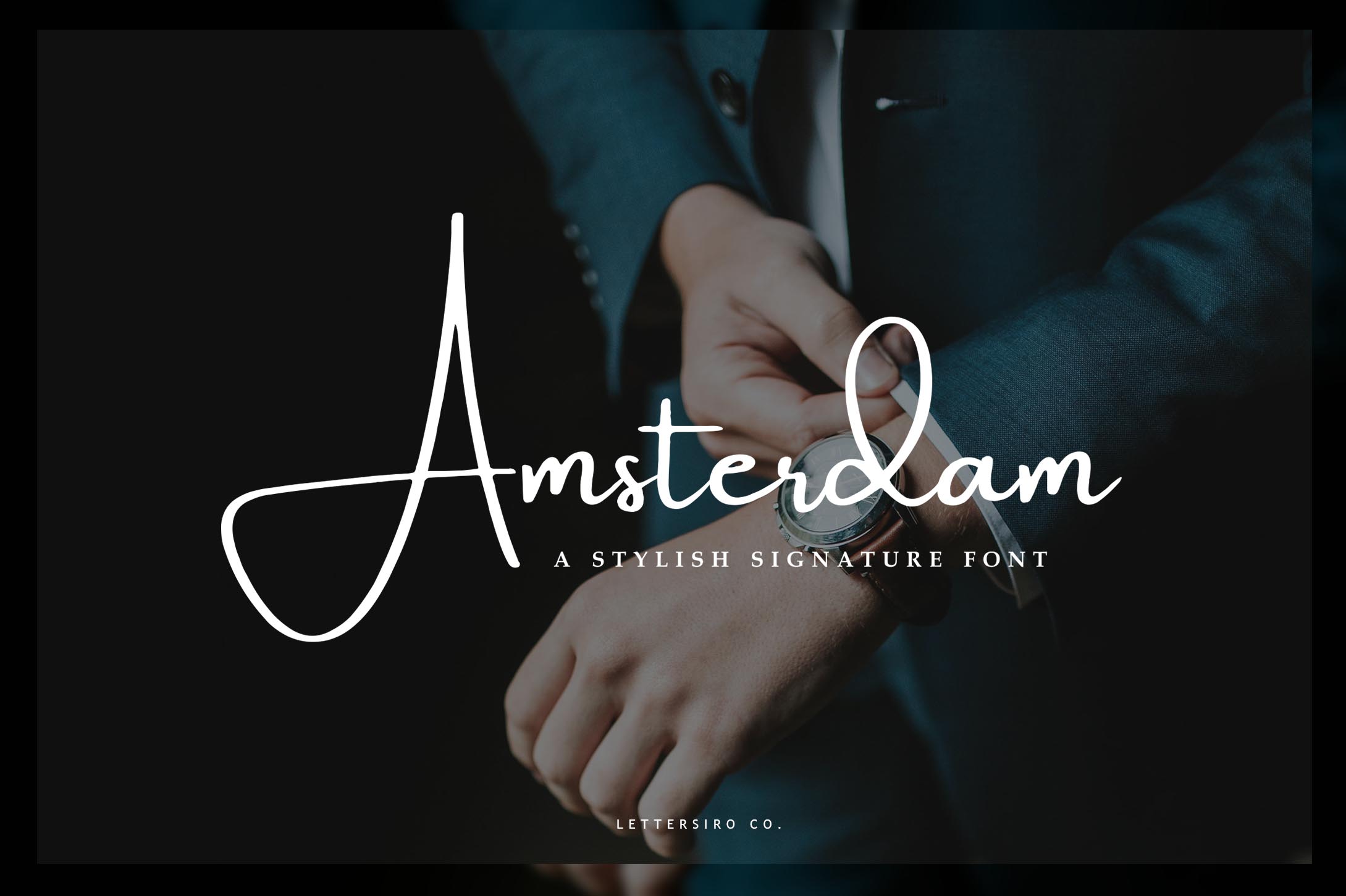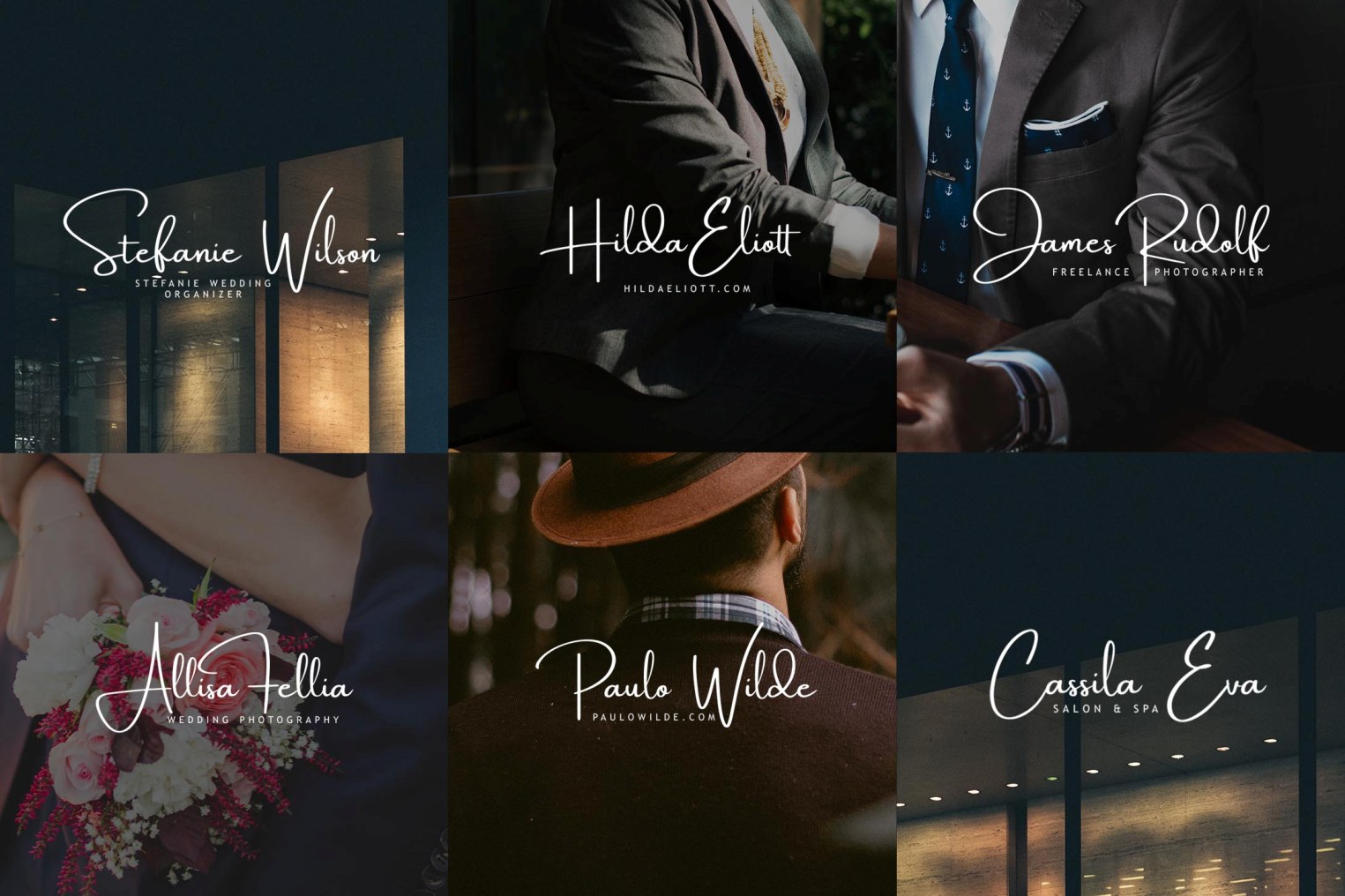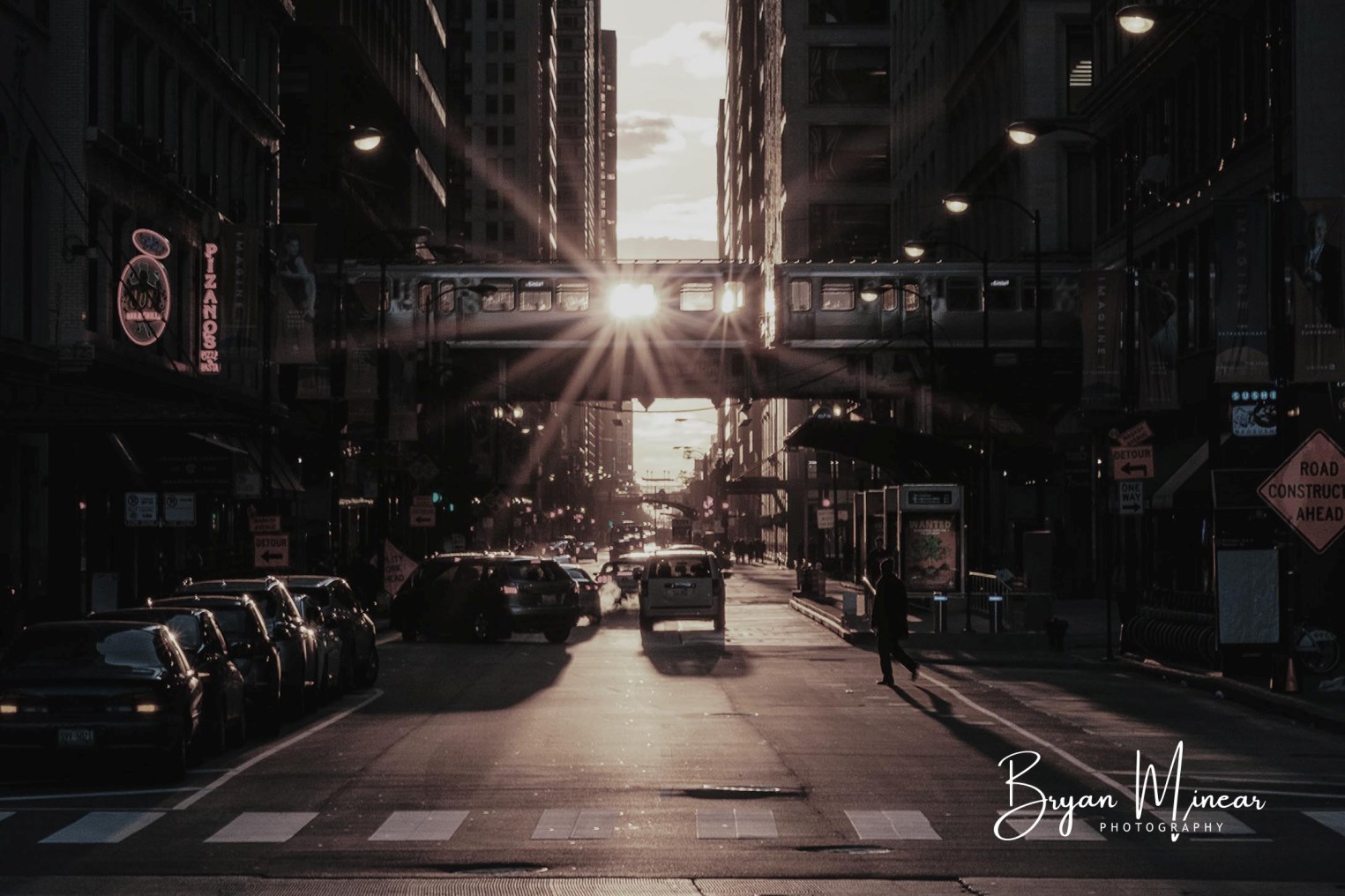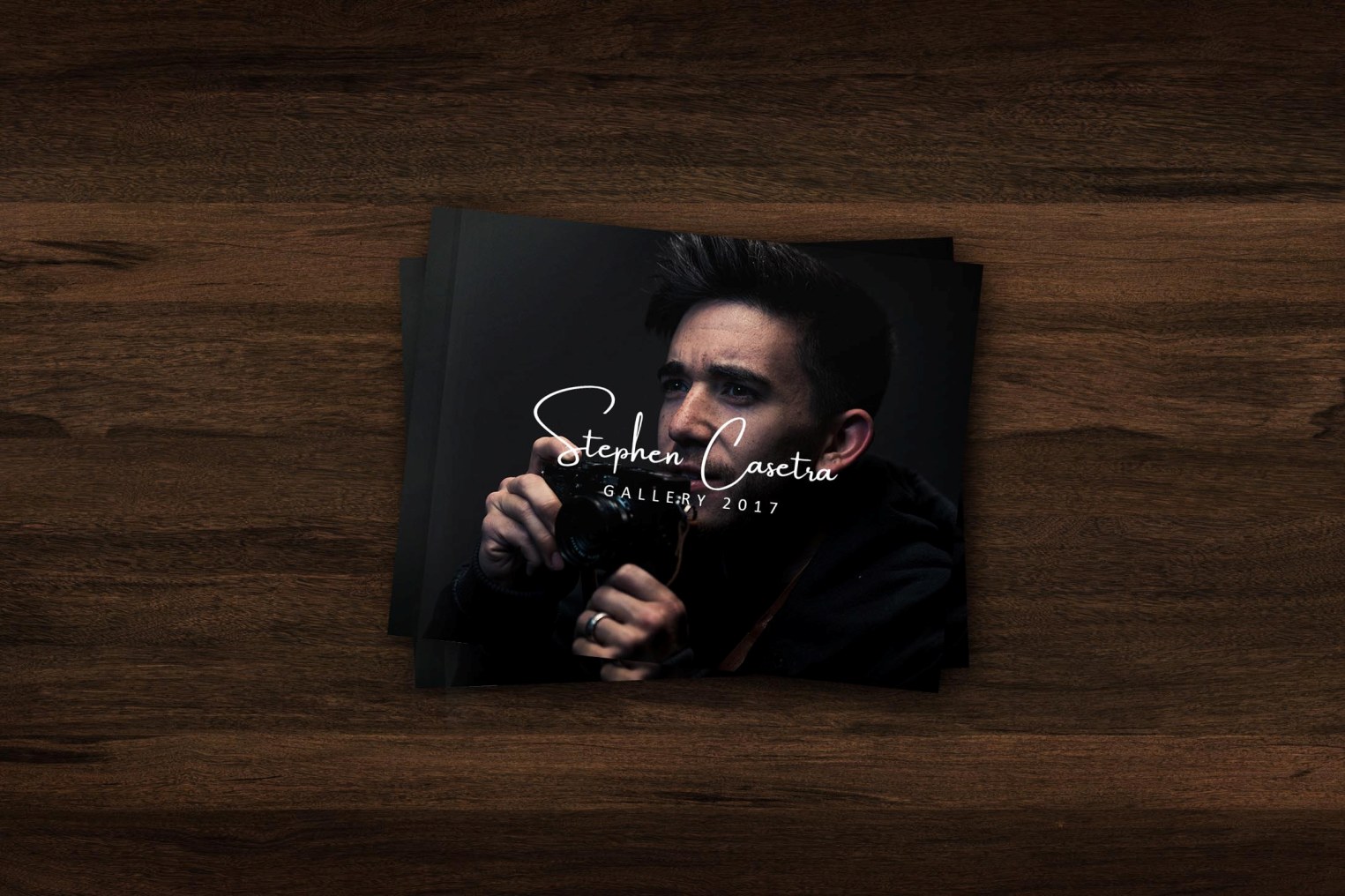
About the Amsterdam Font
Make a bold statement with Amsterdam Font, a powerful and memorable font. Amsterdam is a stylish signature font that is inspired by modern photography.
It’s the ultimate font that can be used to create a stunning watermark for your photos. It also works great as a business signature or on other branding materials.
Amsterdam Font Usage Examples
Amsterdam Font Example